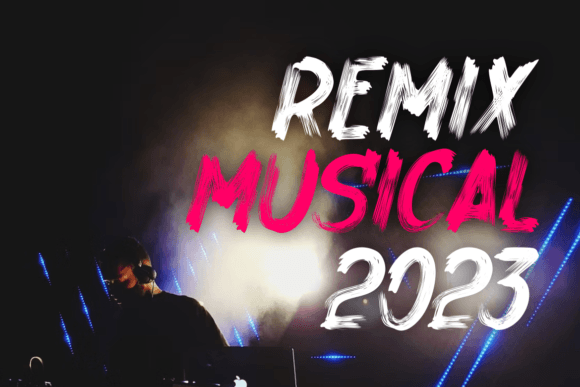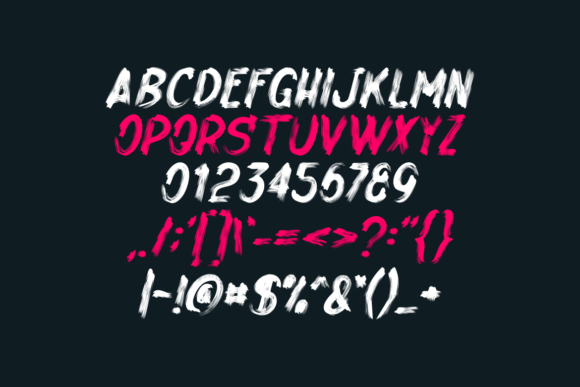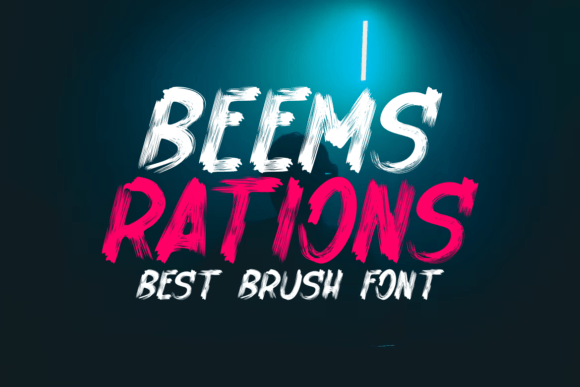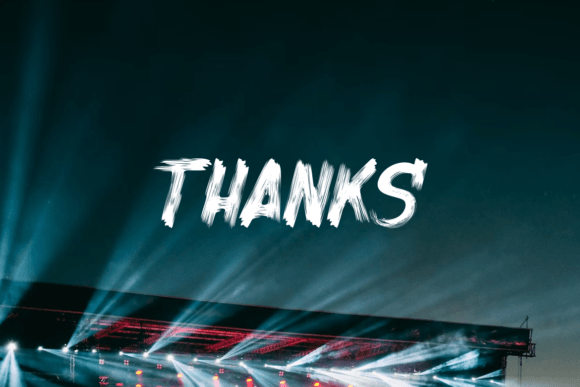
**BeemsRations Font** – Elevate Your Designs with a Modern Bold Display Font
In the realm of typography, a font can make or break a design. For designers and crafters seeking a bold statement, **BeemsRations Font** emerges as a game-changer. This modern display font is engineered to leave a lasting impression, making it perfect for a wide array of applications, from logos and t-shirt printing to esports and beyond.
Unleash Your Creativity with BeemsRations
**BeemsRations Font** is not just any font; it’s a tool for creativity and expression. Its bold and authentic style ensures that your designs stand out in a crowded digital landscape. Whether you’re working on a branding project that requires a strong visual impact or looking to elevate your craft with a unique typographic style, BeemsRations is the perfect choice.
One of the key advantages of **BeemsRations Font** is its versatility. It’s designed to excel in various contexts, making it a valuable asset for designers who work on diverse projects. Here are some areas where BeemsRations truly shines:
- Logo Design: Create memorable and impactful logos that capture the essence of your brand.
- T-Shirt Printing: Add a professional touch to your apparel designs with a font that’s both stylish and legible.
- Esports: Stand out in the competitive esports scene with bold, eye-catching typography.
- And Many More: From posters and flyers to digital banners and social media graphics, BeemsRations can elevate any design project.
Why Choose BeemsRations Font?
Choosing **BeemsRations Font** for your projects comes with several benefits:
- Unique Style: Its bold and authentic display ensures your designs have a unique look.
- High Readability: Despite its boldness, BeemsRations maintains high readability across different devices and sizes.
Tips for Using BeemsRations Effectively
To get the most out of **BeemsRations Font**, consider these tips:
- Pair with Simplicity: Let BeemsRations be the focal point by pairing it with simpler fonts for body text.
- Experiment with Colors: Take advantage of BeemsRations’ bold style by experimenting with vibrant colors and gradients.
- Consider Context: Adapt your use of BeemsRations based on the project’s context, adjusting size and style as needed.
**BeemsRations Font** is more than just a typeface; it’s a design powerhouse that can transform your projects with its bold and authentic style. Its versatility, readability, and ease of use make it an indispensable tool for designers and crafters looking to make a statement. Whether you’re aiming to create compelling logos, standout apparel, or impactful digital content, BeemsRations is your go-to font for achieving modern and memorable designs.
Embrace the power of **BeemsRations Font** in your next project and discover how this modern display font can elevate your designs to new heights.